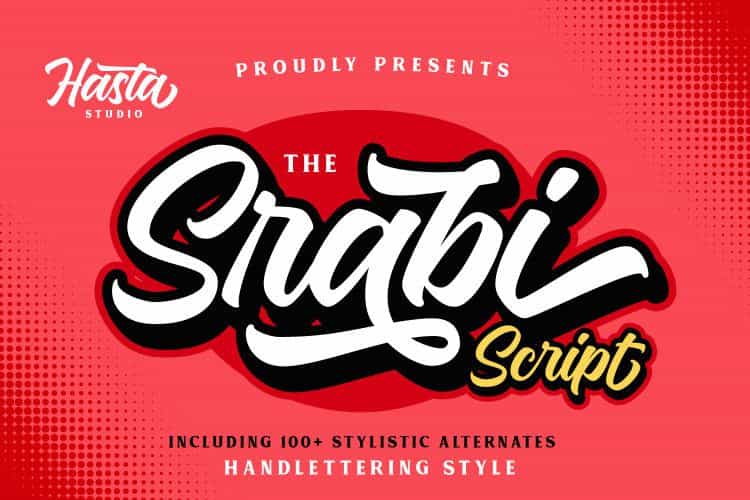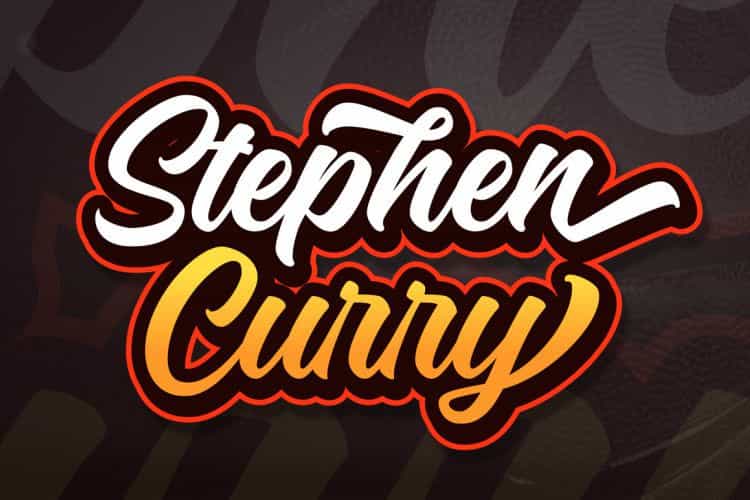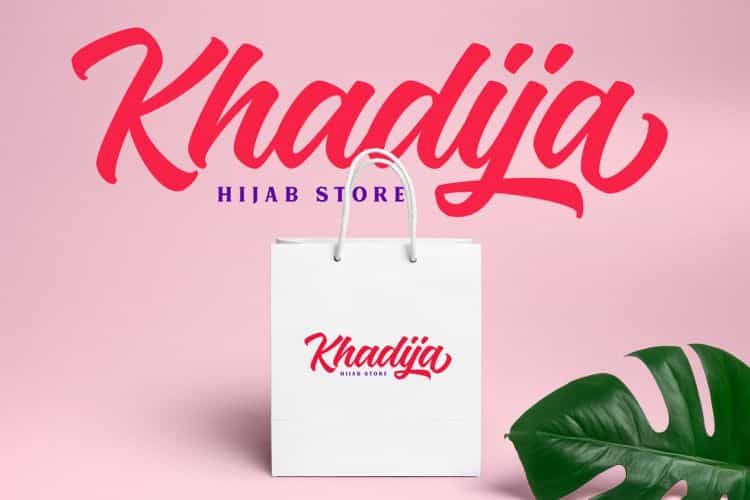
Introducing Srabi Script Font! High quality script font with swashes inspired by modern vintage design. Shared and designed by Hasta Type. Srabi Script Font is Inspired by Vintage style and combined with Hand Lettering style. This font every single curve has my personal type touch since I did my manual handlettering brush.